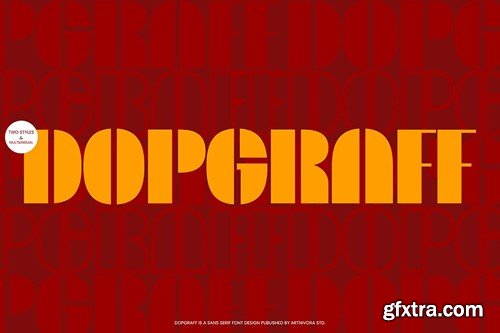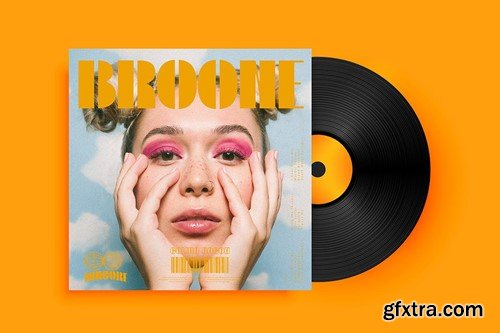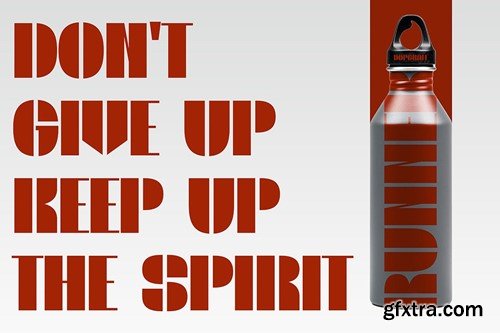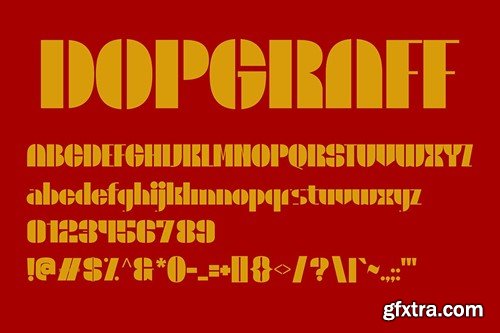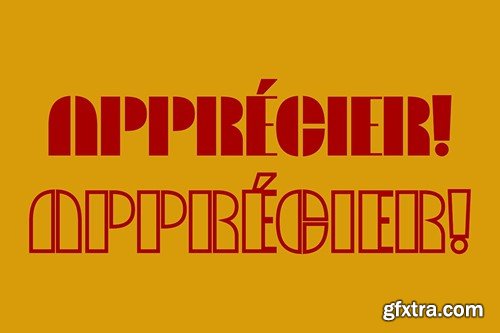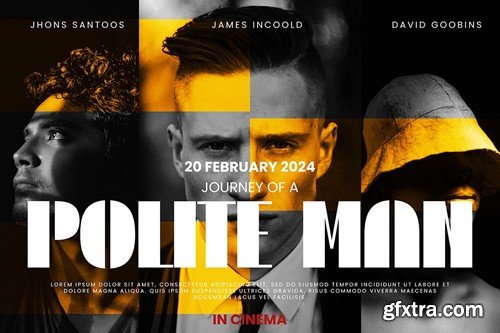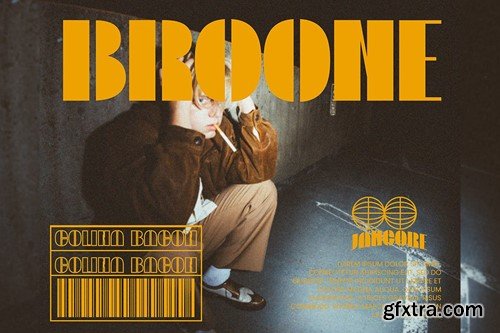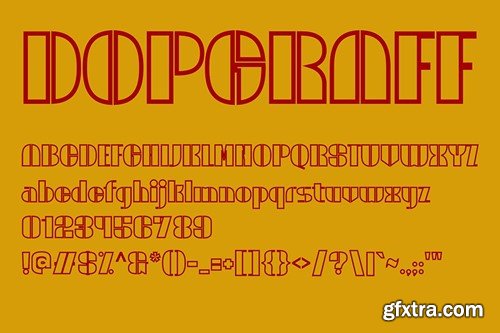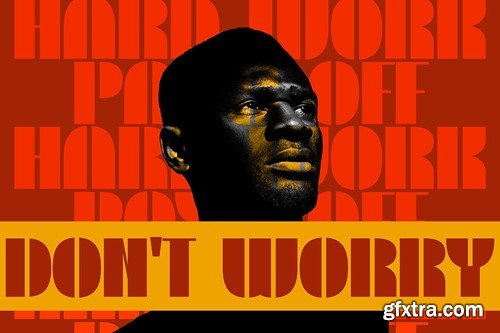
Doopgraf - Sans Serif Font WFQZK8N
Doopgraf - Sans Serif Font
Introducing **Doopgraf **, a simple and sans serif font. So perfect for you who needs a typeface for logo designs, magazine, social media, brochure, and many more.
Features
• Uppercase
• Lowercase
• Punctuation
• Numerals
• Line Art Alternate Style